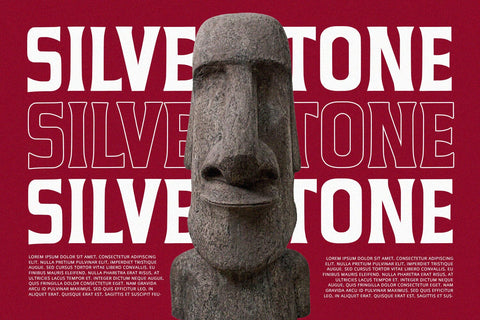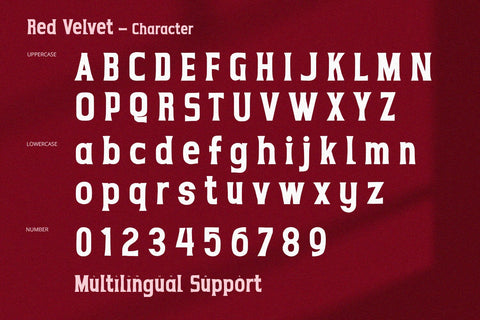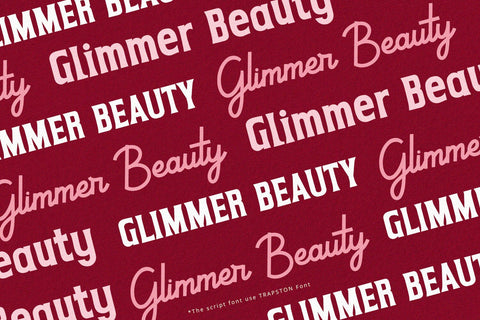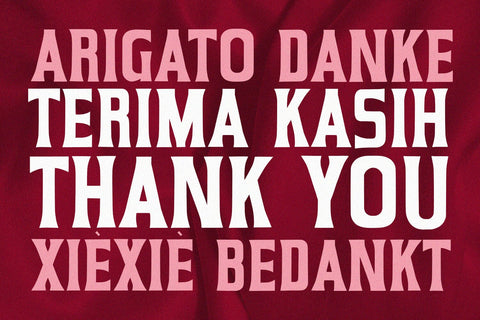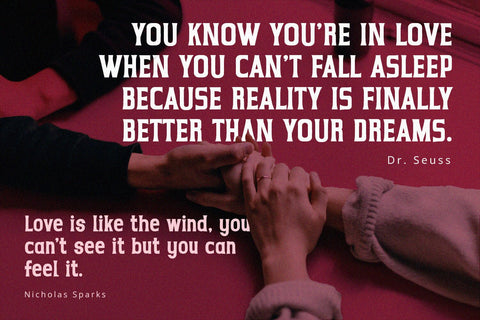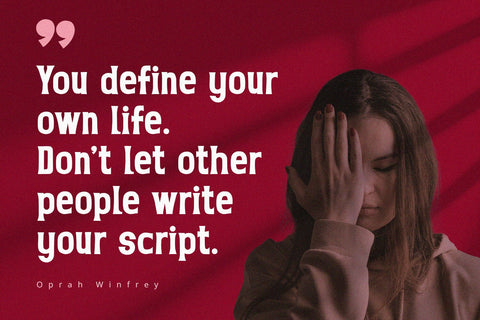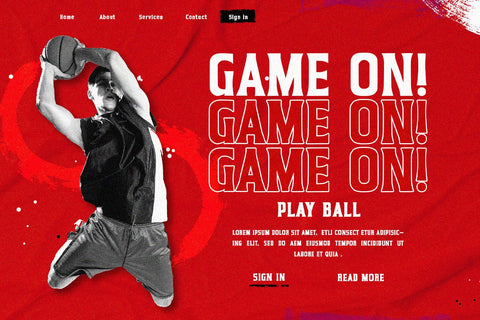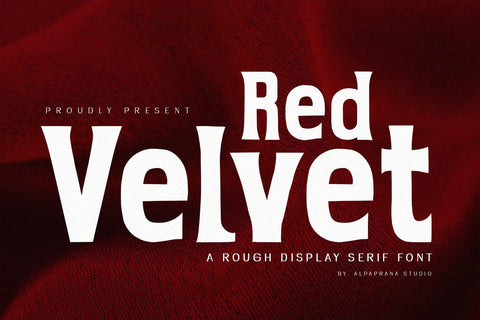
Red Velvet - Serif Font
Red Velvet is a rough serif font with elegant and modern feels. It will be perfectly used for Branding, Logo Design, Lettering, Logotype, Clothing, Poster, magazine, packaging, posters, shopping bags, t-shirts, book covers, photography, special events and other design project.